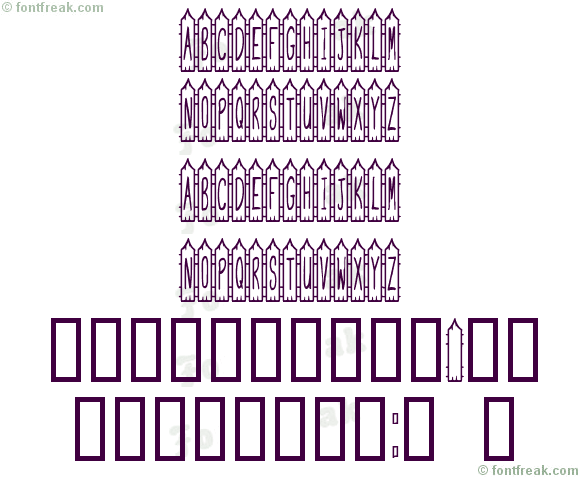
JI Picket Fence
About JI Picket Fence
The JI Picket Fence font, designed by Jeri Ingalls, is a unique decorative typeface that captures the charm of rural aesthetics. Characterized by its playful design, the font features a distinct style reminiscent of picket fences, complete with pointed tops that add a whimsical touch. The stroke weight is consistent, creating a cohesive look, while the spacing between letters allows for easy readability and visual appeal. This font stands out with its decorative elements, making it an ideal choice for projects that require a touch of creativity and warmth.
Best suited for a variety of applications, the JI Picket Fence font excels in wedding invitations, where its charming design can evoke feelings of love and nostalgia. It is also perfect for children's book titles, where the playful nature of the font can attract young readers. Restaurant menus can benefit from its inviting appearance, enhancing the overall dining experience. Additionally, this font works well for local event posters, bringing a sense of community spirit to promotional materials.
What truly sets the JI Picket Fence font apart is its ability to convey a sense of nostalgia and warmth, making it not just a font, but a visual storytelling tool. For those looking to download a unique typeface, the JI Picket Fence font free download is an opportunity to infuse projects with a delightful and memorable touch.